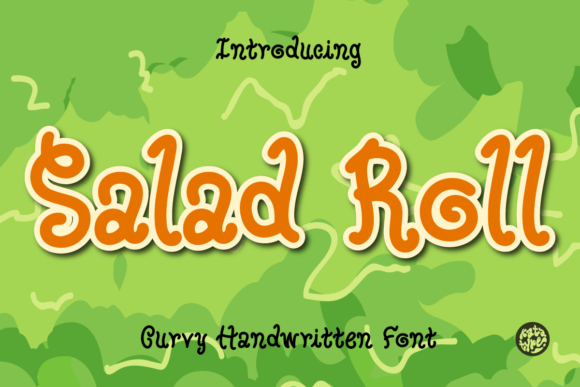
Discover the magic of Salad Roll Font, the ultimate choice for all your creative endeavors! Crafted by the talented team at Katatype, this captivating script font is designed to elevate your designs and bring out the best in your projects. With its cute and curvy handwritten style, Salad Roll Font adds a playful touch that will instantly capture the hearts of your audience.
Are you looking to infuse your designs with a soft and friendly vibe? Look no further than Salad Roll Font! This charming typeface is perfect for a wide range of projects that require a dash of whimsy and creativity. Whether you're designing greeting cards, children's books, handcrafted items, or social media graphics, Salad Roll Font will effortlessly enhance the visual appeal of your creations.
Let your imagination run wild with the versatility of Salad Roll Font. Its unique design allows for endless creative possibilities, making it an invaluable asset for both professional designers and DIY enthusiasts. This font will become your go-to choice for all your editorial design needs, as it effortlessly blends elegance with a touch of quirkiness.
Salad Roll Font is more than just a font; it's an emotional experience. Each stroke and curve exudes warmth and joy, creating a connection with your audience that goes beyond words. Watch as your designs come to life with the captivating energy of Salad Roll Font, leaving a lasting impression on anyone who lays eyes on them.
What sets Salad Roll Font apart is its ability to evoke emotions and tell stories through its unique style. It's like having your own personal storyteller, infusing your designs with an enchanting narrative. Let Salad Roll Font be the voice that speaks volumes, captivating your audience and leaving them eager for more.
Don't settle for ordinary fonts when you can have extraordinary. Download Salad Roll Font today and unlock a world of creative possibilities. With its keyword-rich features specifically designed for editorial design, Salad Roll Font will take your projects to new heights.
In a world where first impressions matter, make yours unforgettable with Salad Roll Font. Let its captivating charm and friendly essence set you apart from the crowd. Join the countless designers who have already embraced the magic of Salad Roll Font and witness the transformation it brings to your designs.